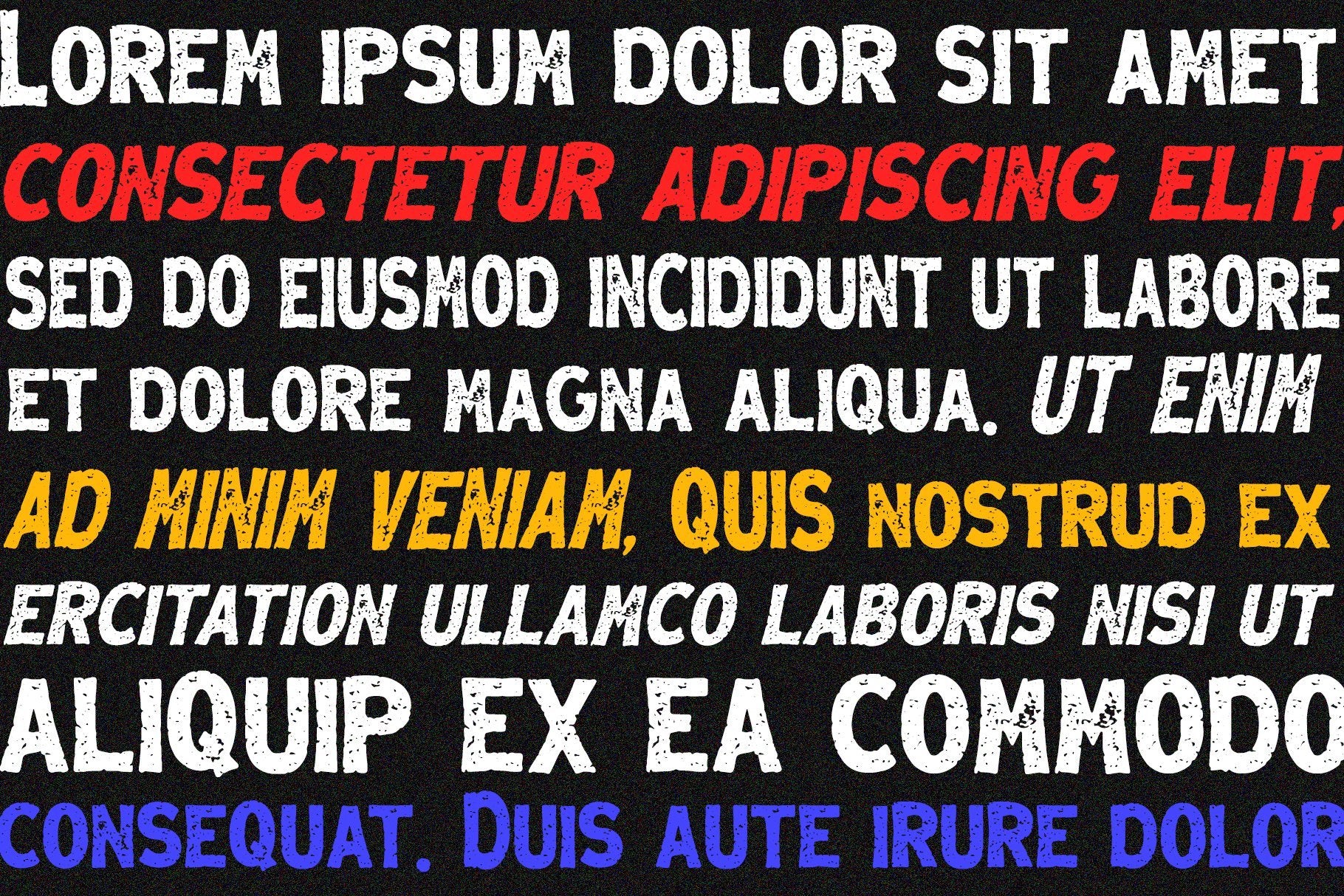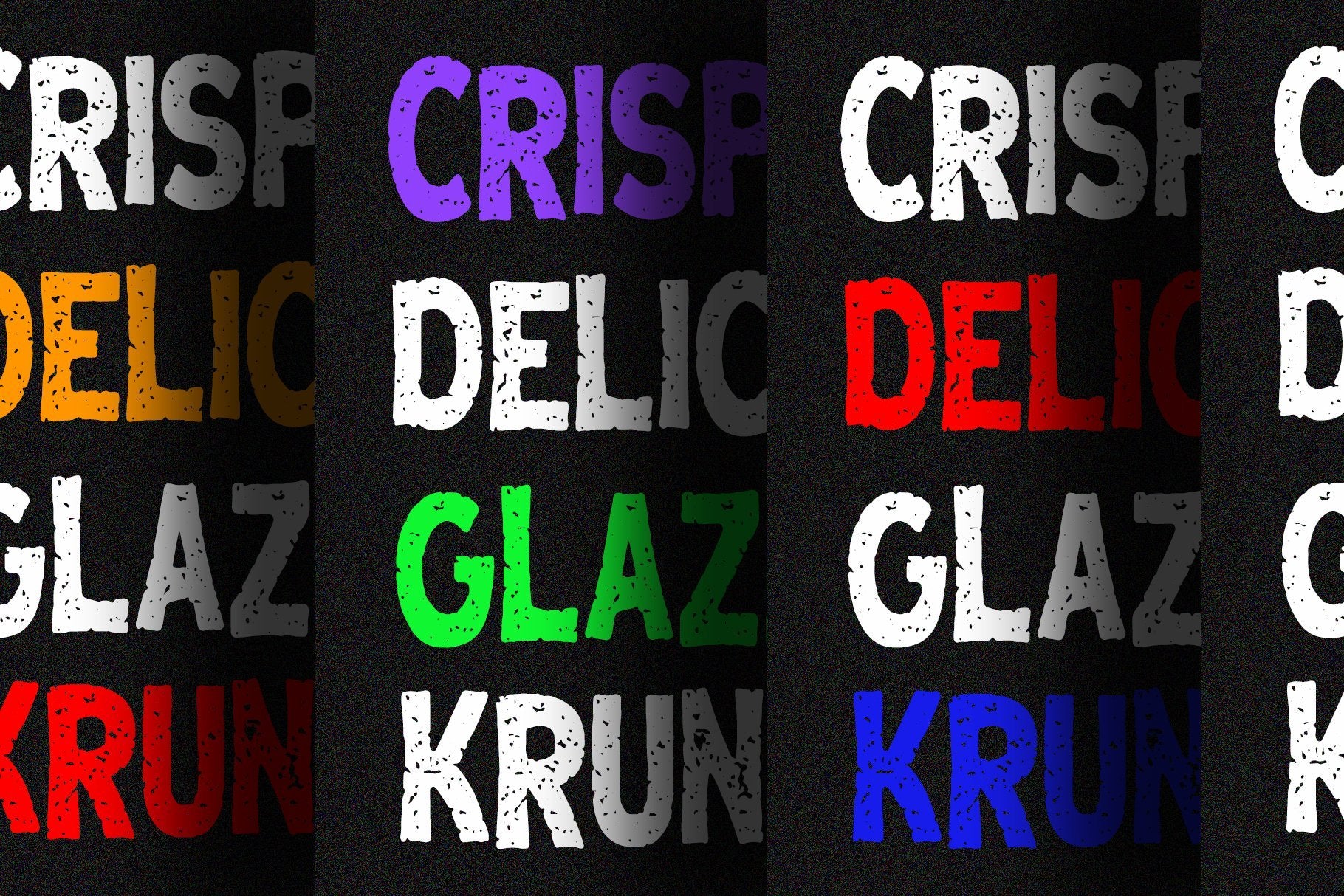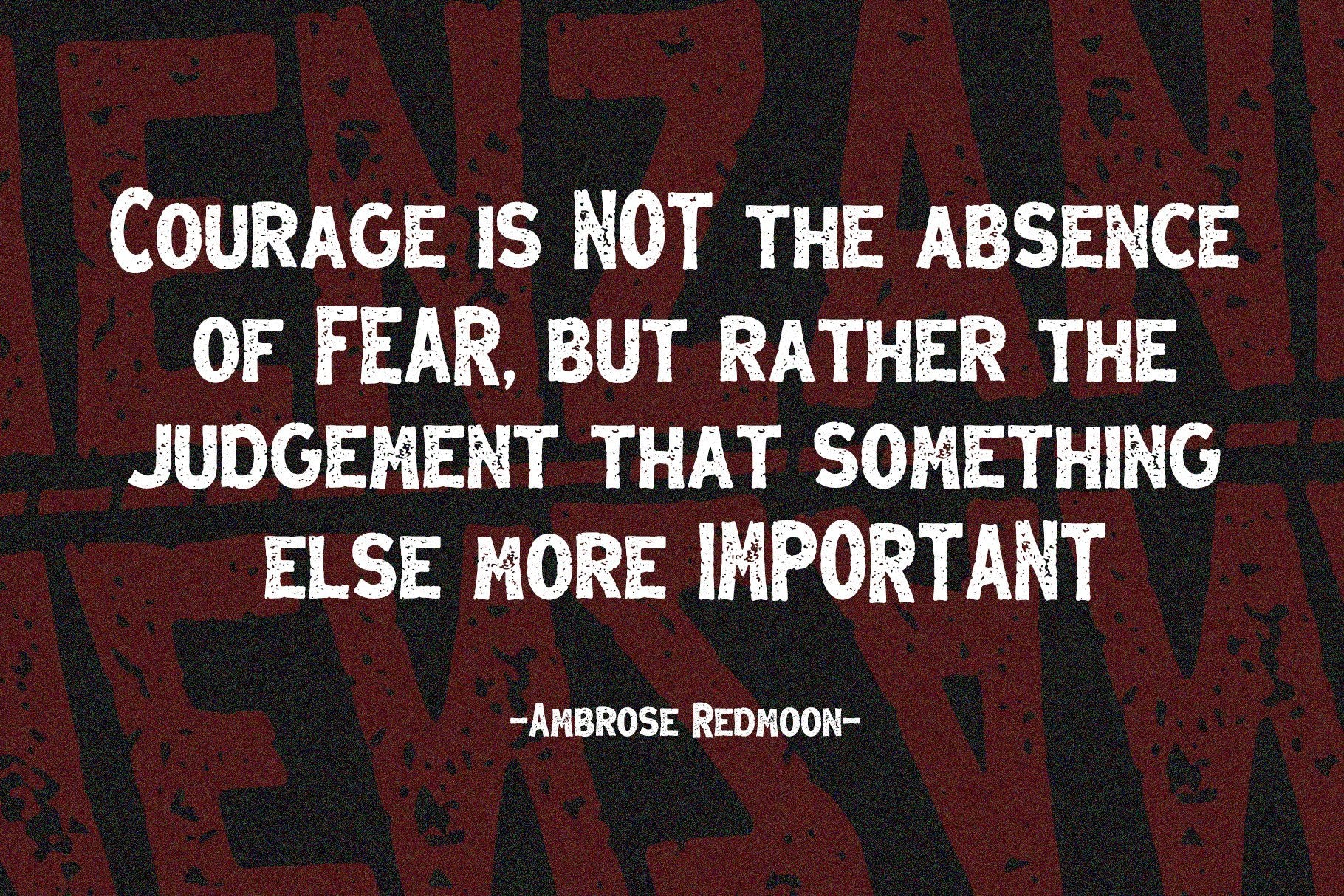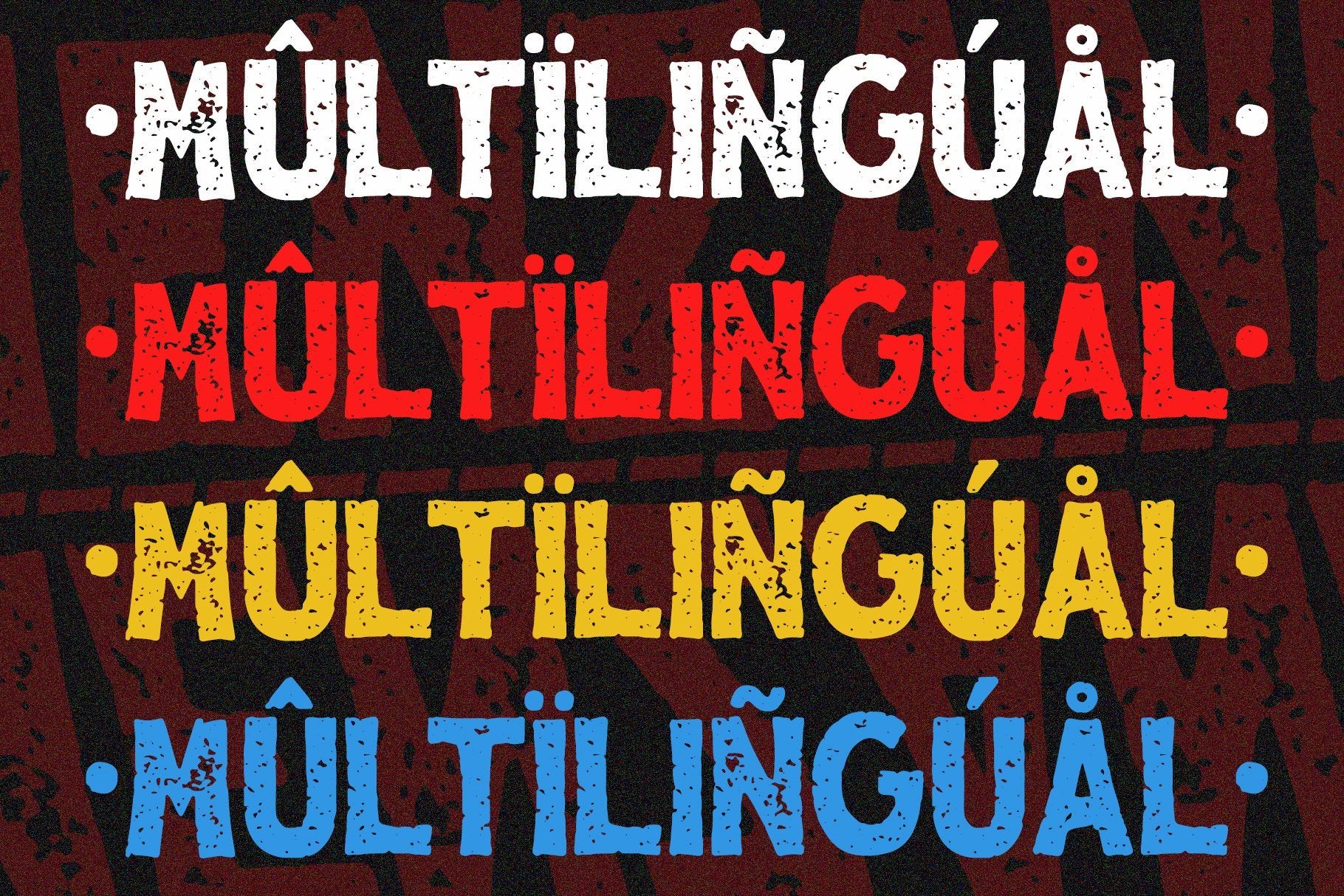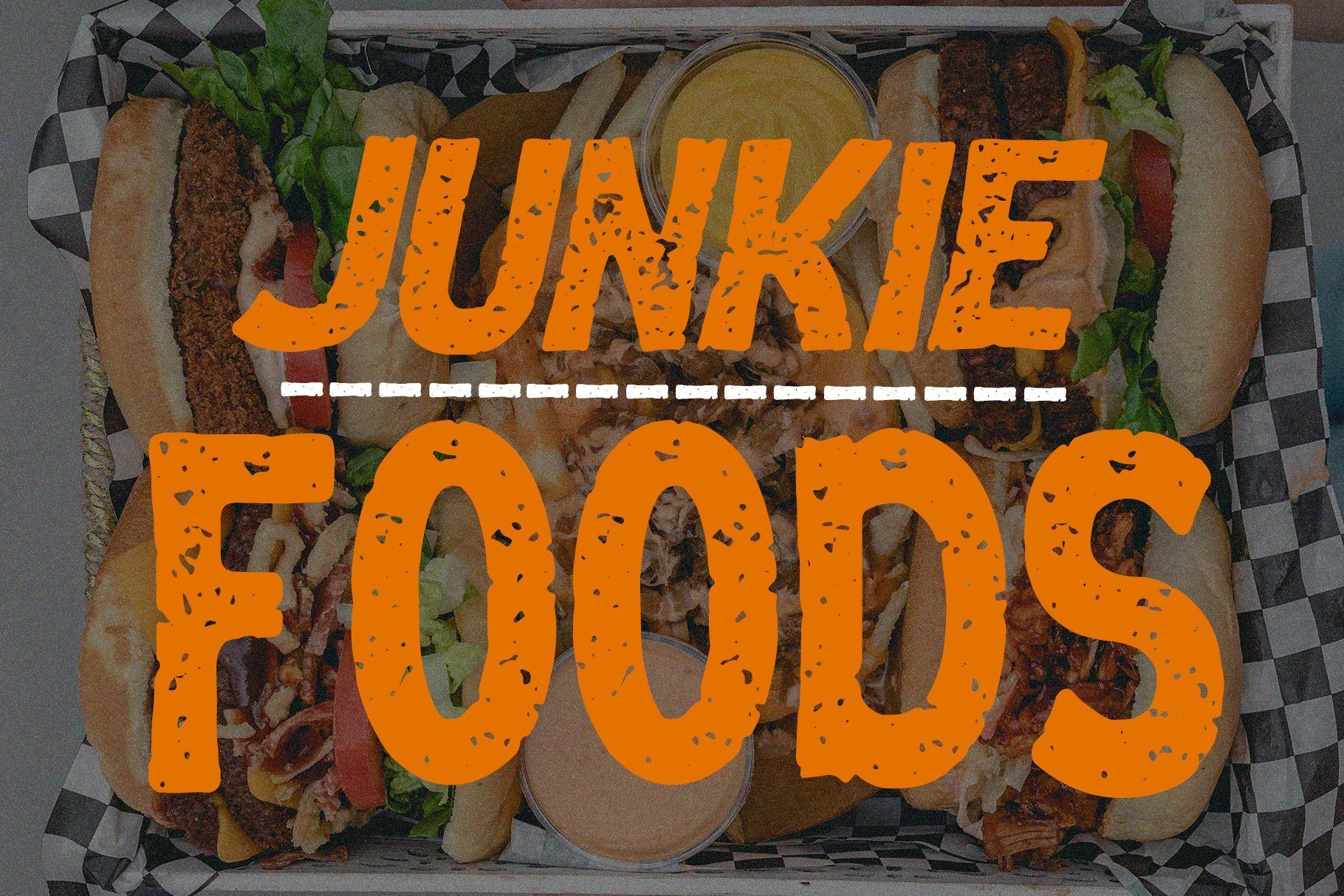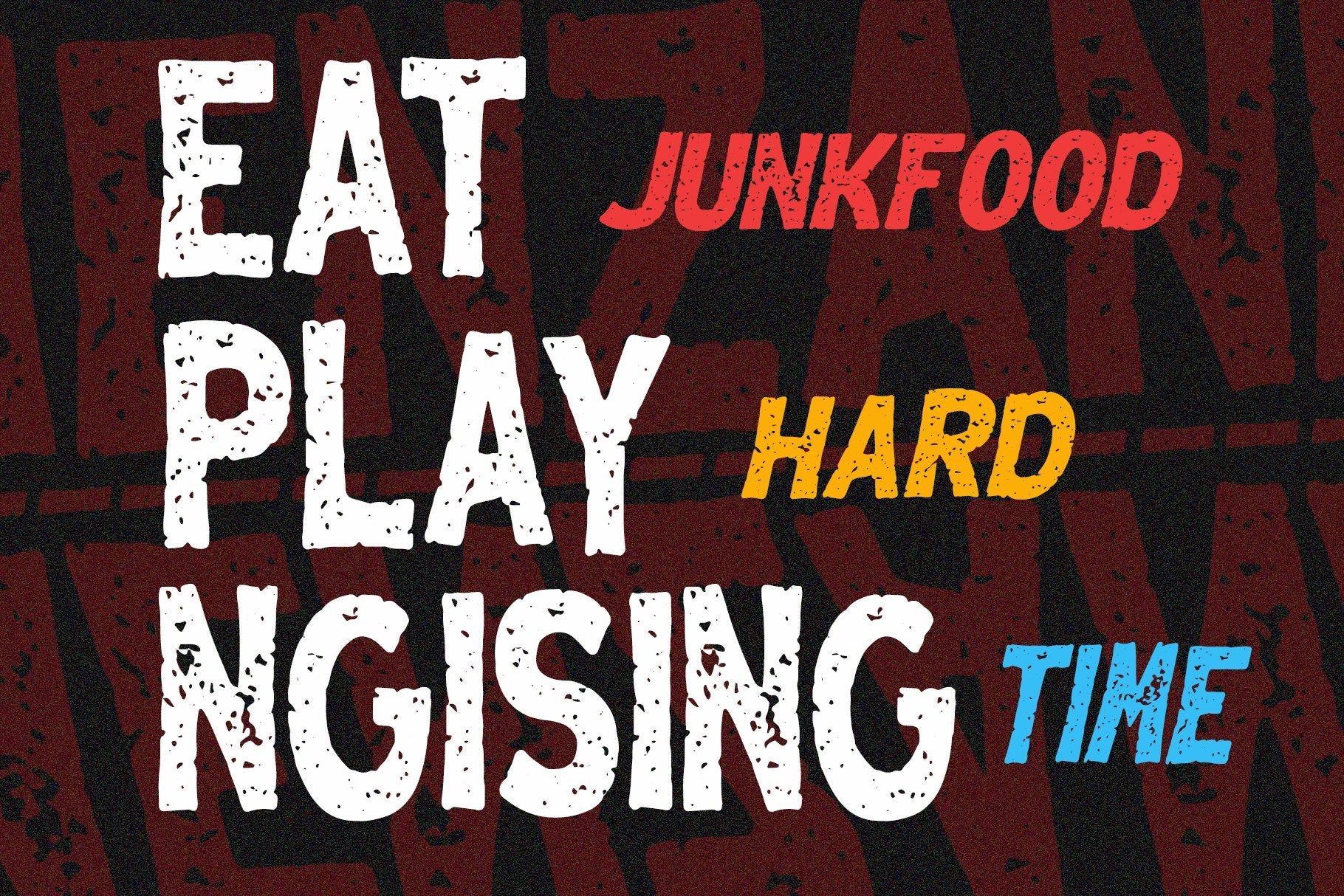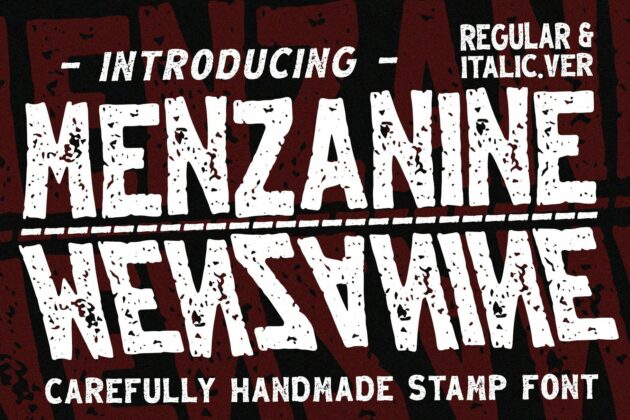
MENZANINE – STAMP TEXTURED FONT FAMILY
MENZANINE, is a display font family with stamp textured that gives a rustic style, made carefully for the usability and versatility. It comes in two versions, Regular and Italic. Great pair for any display projects, posters, promotions, headers, package,printing projects, signage,badge, merchandise and much more. HIGHLIGHTS ALL in caps characters, with two versions : Regular & Italic Access the capslock for different heights Easy to use with no need additional software or programs Included numerals, punctuation and symbols Multilingual Support FILES MENZANINE OTF,TTF,WOFF MENZANINE ITALIC OTF,TTF,WOFF Please kindly support us and feel free to answer if you have any question or issue about our products. Hope you enjoy and Stay Creative!